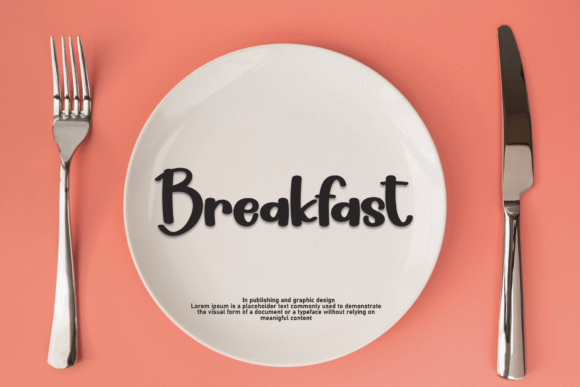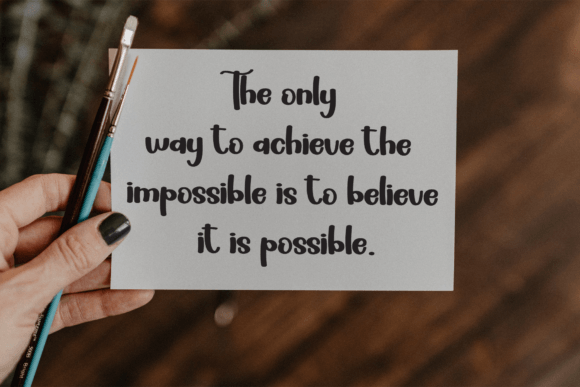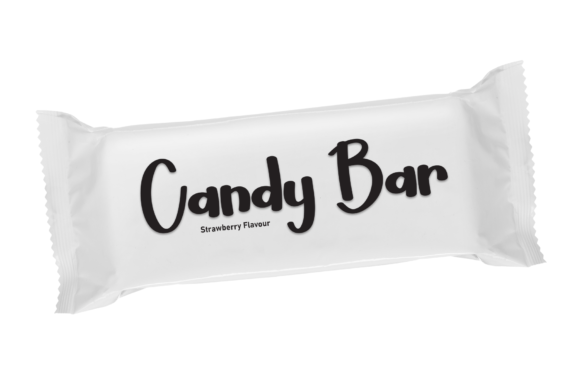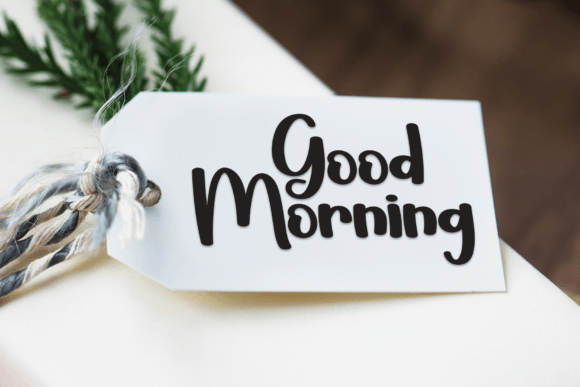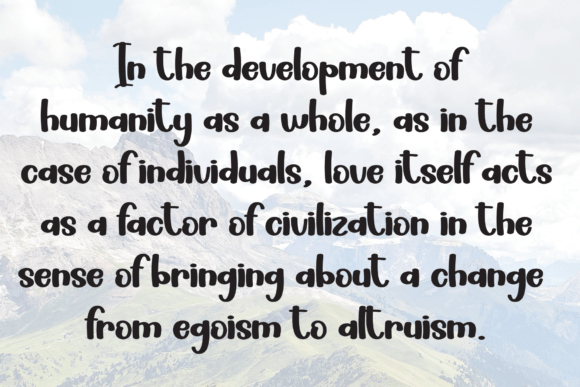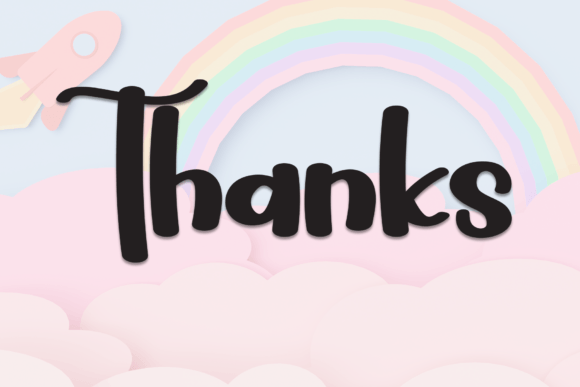
Unlock Your Creativity with the Baby Rainbow Font
Have you ever sat down with a blank canvas, a blank sheet of paper, or a blank computer screen and wondered where to start? The blank slate can be both a blessing and a curse for creatives. For me, it’s often the spark that sets my imagination ablaze. I see colors, shapes, and textures swirling together in a beautiful dance, and I know exactly what I want to create.
That’s where the Baby Rainbow Font comes in – a sweet and friendly handwritten font that brings a touch of whimsy and personality to any design. Its natural and unique style makes it incredibly versatile, and the possibilities are truly endless. Whether you’re designing a children’s book, a wedding invitation, or a social media post, the Baby Rainbow Font is the perfect addition to bring your vision to life.
As a designer, you’re always on the lookout for the perfect tool to help you express your creativity. The Baby Rainbow Font is a valuable asset in your toolkit, allowing you to add a touch of warmth and character to any project. So why not give it a try and see where your imagination takes you?
Baby Rainbow Font Key Features
- Character Set: 256 glyphs, including uppercase and lowercase letters, numbers, punctuation, and special characters
- Unique Characteristics: Hand-drawn, whimsical design with a touch of nostalgia, perfect for children’s books, nursery decor, and other playful applications
Baby Rainbow Font Review
Overall, I think the Baby Rainbow Font is a cute and playful addition to any design project. ✨ The font’s rounded edges and gentle curves give it a soft, childlike feel that’s perfect for projects targeting young audiences. ✨ The font’s color variations also add an extra layer of visual interest, making it stand out from more traditional font options.
However, there are some limitations to consider. ⚠️ For one, the font’s cursive script can be a bit tricky to read at smaller font sizes. ⚠️ Additionally, the font’s playful feel may not be suitable for all projects, particularly those requiring a more professional or formal tone.
In terms of overall impression, I think the Baby Rainbow Font is a fun and creative option for designers looking to add some personality to their projects. While it may not be the best choice for every project, it’s definitely worth considering for those that require a touch of whimsy and playfulness.
Here are some key features of the Baby Rainbow Font:
- Soft, rounded edges for a childlike feel
- Color variations for added visual interest
- Tricky to read at smaller font sizes
- Not suitable for all project types (e.g. professional or formal)
For a more vibrant effect, use the font in combination with a bright color scheme and a playful background.
For a unique effect, experiment with combining the font with different font styles and colors.
For a more cohesive look, use the font consistently throughout your document.
The Baby Rainbow Font is ideal for children’s products, nursery decorations, and playful marketing materials.
To get the most out of the font, use it in combination with bright colors, playful graphics, and whimsical illustrations.
Experiment with different font sizes, colors, and styles to create a unique and eye-catching design.